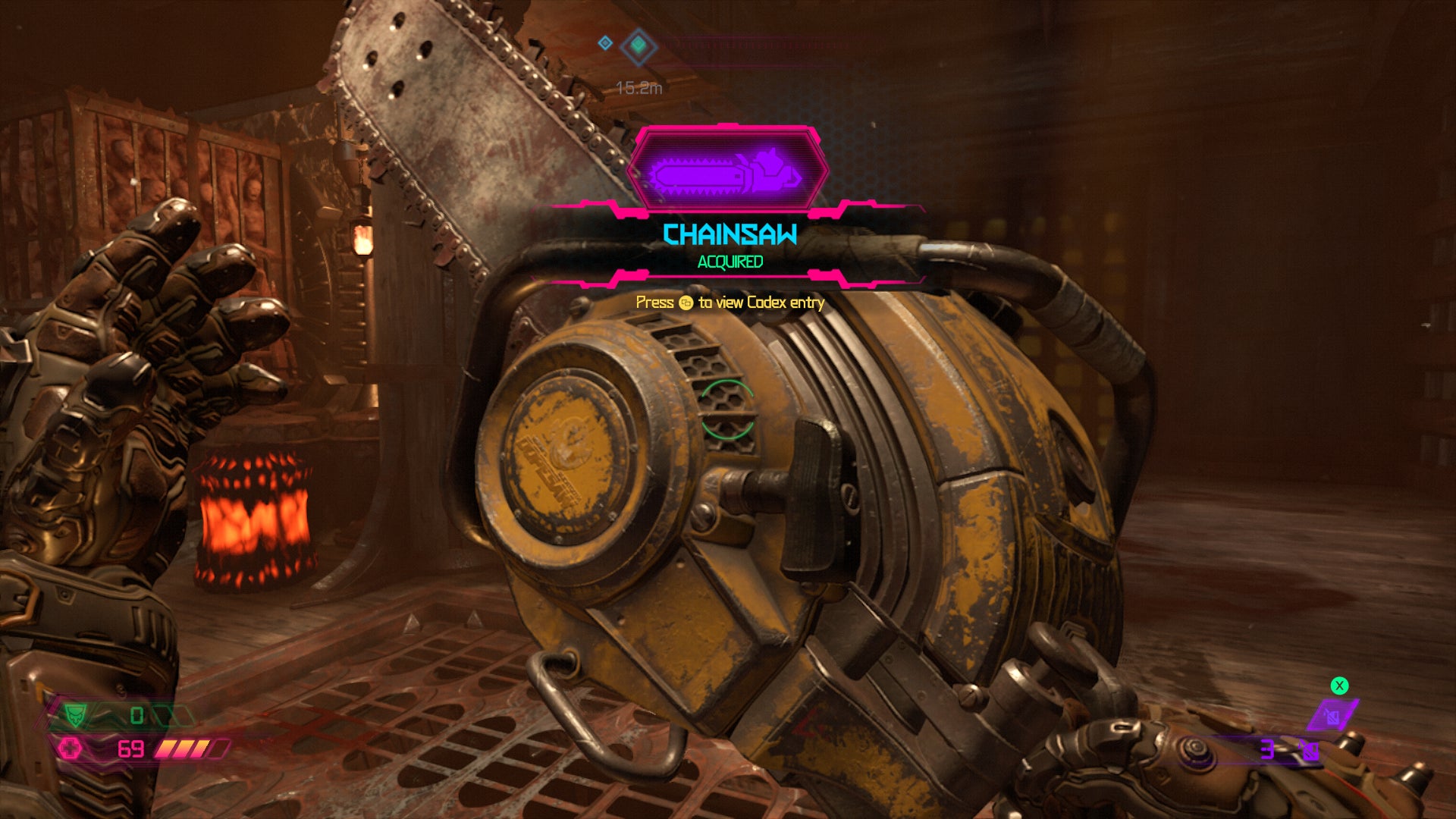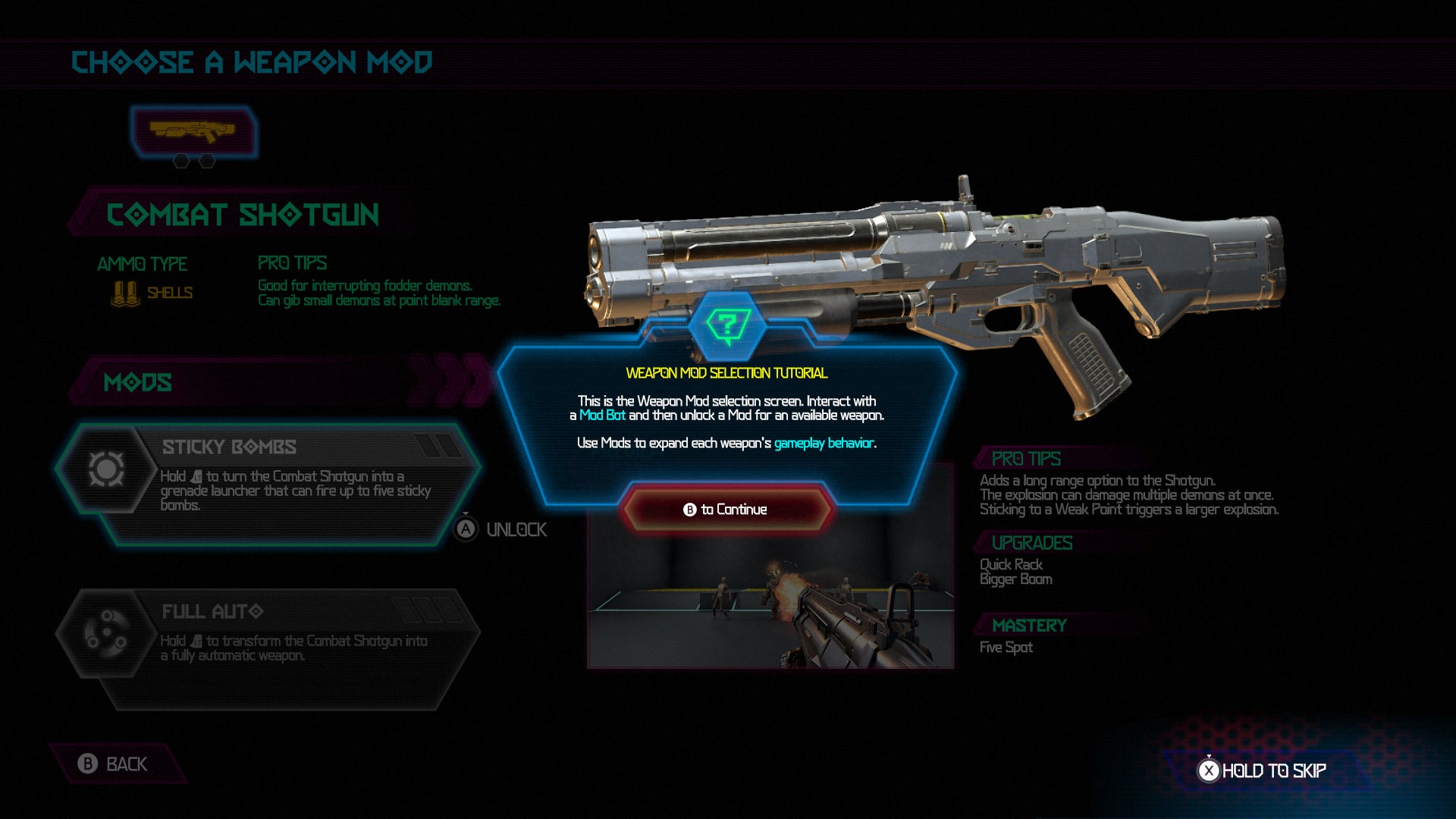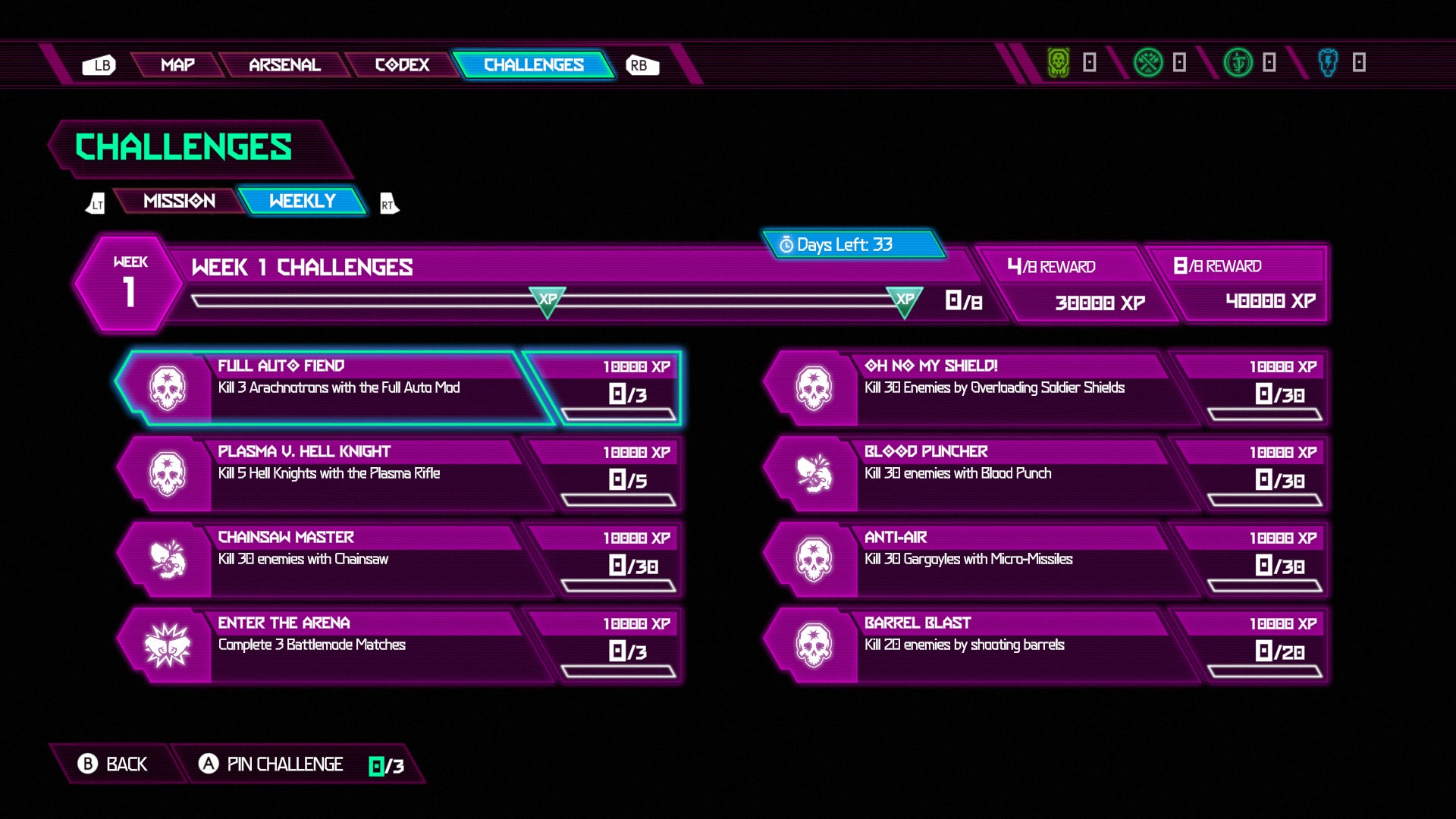
Please, not like this.
For some reason, I thought we were finally starting to turn a corner on tiny fonts. More and more games that launched with them were also getting patches to fix them. The Outer Worlds even got its font-size update updated
But now Doom Eternal is here, and despite adding twice as many types of demons as the 2016 game, itâs carried over one of that gameâs worst sins: tiny menus, subtitles, and tutorial prompts that are pretty much unreadable unless you have your face smooshed up against the screen. The game is not prone to subtlety. There are secret collectibles literally marked by giant, glowy question marks. Meanwhile the descriptions for which weapon mods make explosions and which up your rate of fire read like an Infinite Jest footnote. Come on Doom Eternal, you had four years!
This is what it looks like when a button prompt pops up.
And this is the pool of white smudges you need to pick apart in order to read about your loadout.
Finally, did you want to learn more about all the new enemies in the game and the half dozen ways you can brutally disfigure them?
Good luck!
Readingâs not the most important thing in Doom. The most important thing in Doom is moving fast and making squishy things go splat. And yet, try as it might to channel the simple, unadulterated action of classic first-person shooters, Doom Eternal is a modern game coming out in 2020 and thus a game with plenty of words. Some of these words pop up in the middle of some really intense shit. Not being able to quickly make sense of them and then file them away breaks up the flow.
Or maybe theyâre simply another obstacle to be navigated on the road to bloody redemption. Bloody because of all the dead demons. And also my eyes. My poor, poor eyes.